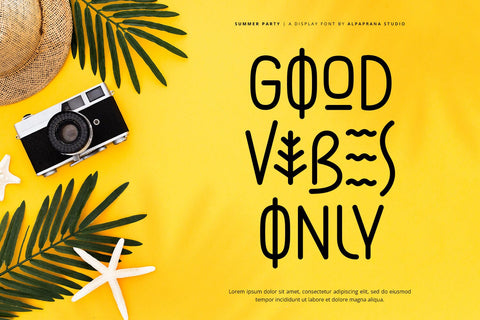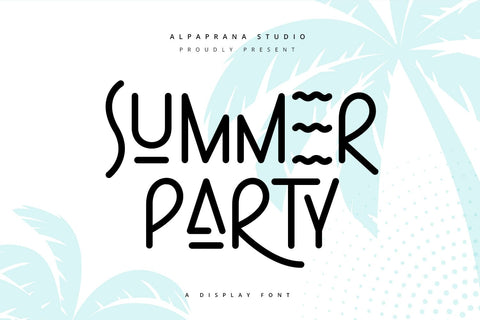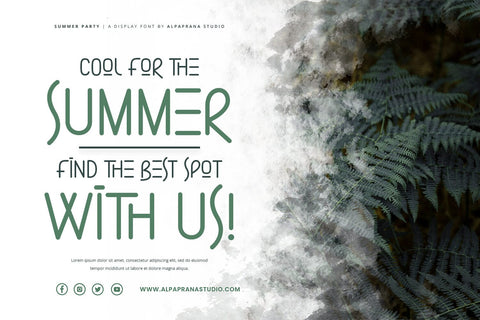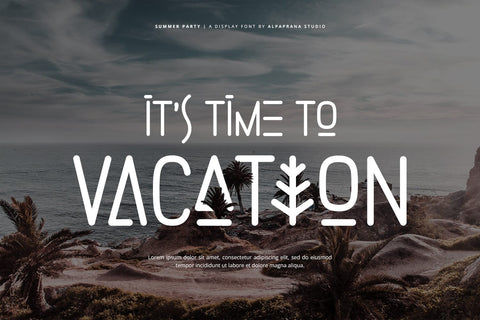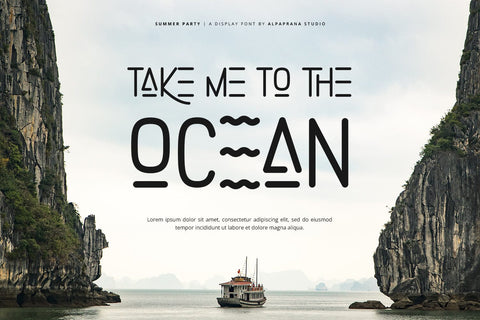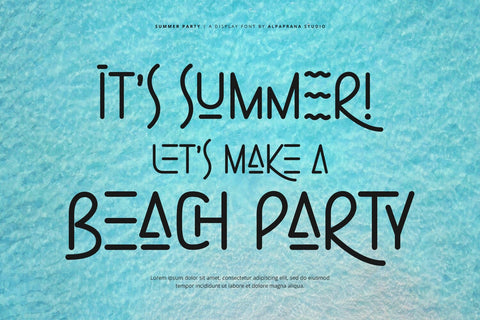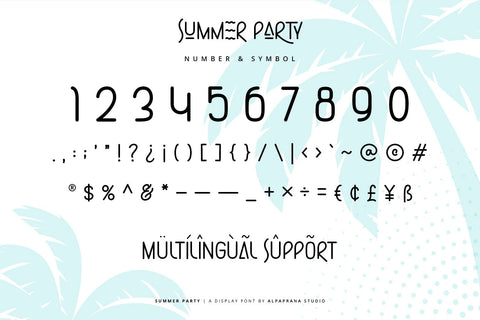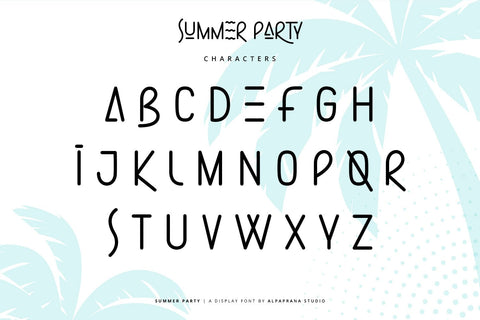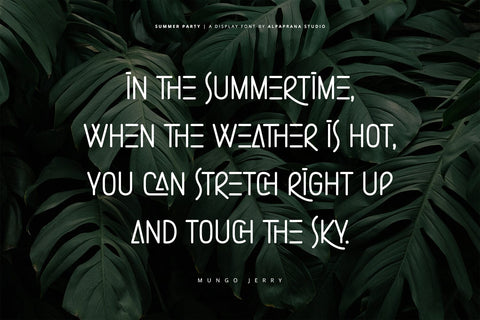
Summer Party - Display Font
Summer Party is a display font with authentic and playful feels. It will be perfectly used for Branding, Logo Design, Lettering, Logotype, Clothing, Poster, magazine, packaging, posters, shopping bags, t-shirts, book covers, photography, special events and other design project.